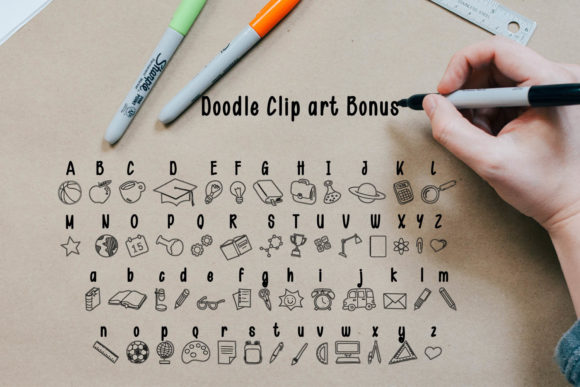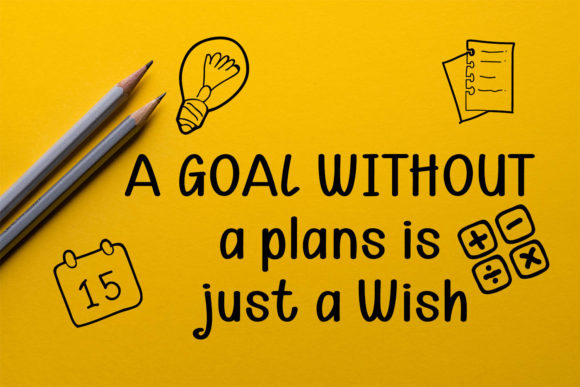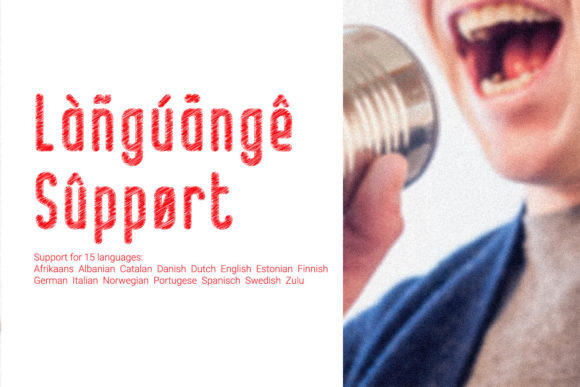
Introduction to Kids Knowledge Family Font Font
Fonts play a crucial role in design, and the Kids Knowledge Family Font font is a typeface that brings both character and versatility to any project. Whether you’re working on a branding project, a website, or a print design, the Kids Knowledge Family Font font offers a unique style that can elevate your work.
| π€ Author | 38.lineart |
The Kids Knowledge is a striking family.
It includes 5 amazing styles which can be combined perfectly, giving you the opportunity to create multiple unique designs in an instant It was inspired by childrenβs science projects and will give a playful touch to your designs.
The Kids Knowledge Family Font font is more than just a typeface β it’s a design tool that helps you communicate your message with style and clarity. Its unique character set and versatile design make it suitable for a wide range of applications, from elegant invitations to bold headlines.
With its carefully crafted letterforms and balanced proportions, the Kids Knowledge Family Font font ensures readability and visual appeal across all mediums.
What makes Kids Knowledge Family Font font special?
The Kids Knowledge Family Font font stands out with its unique design, exceptional readability, and versatility across various design applications.